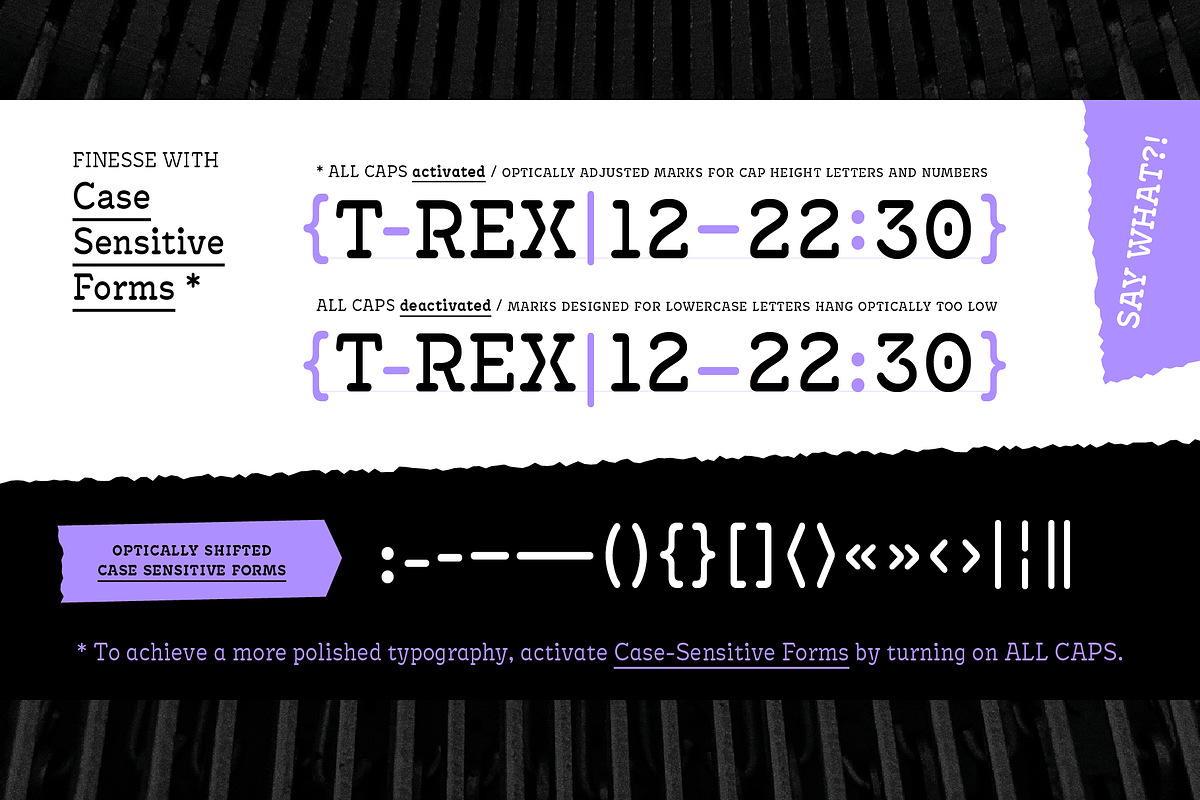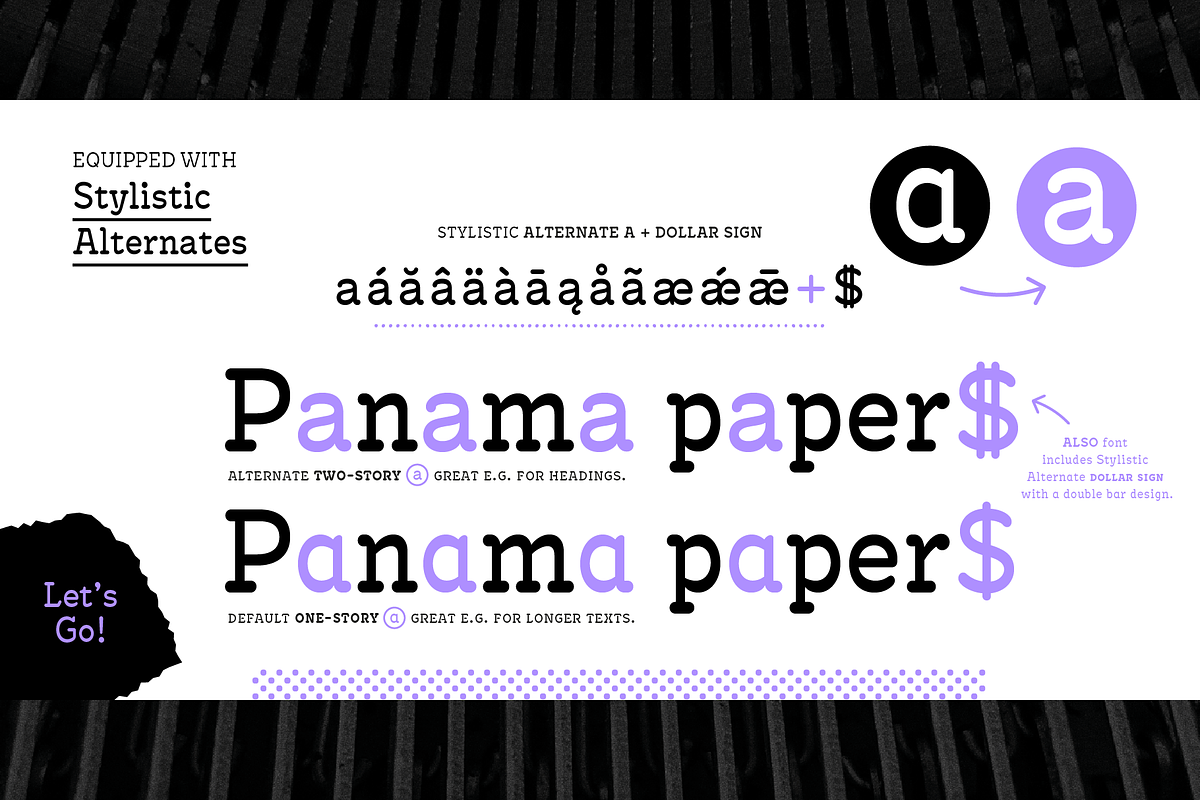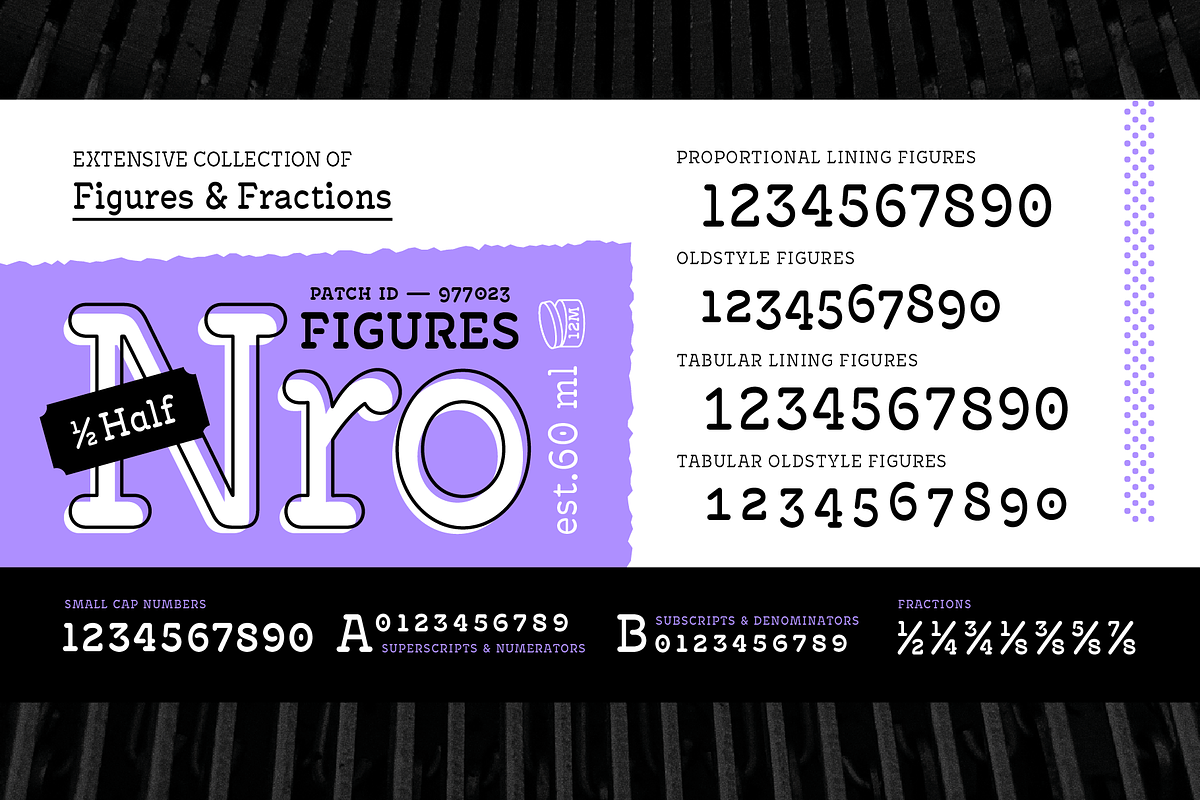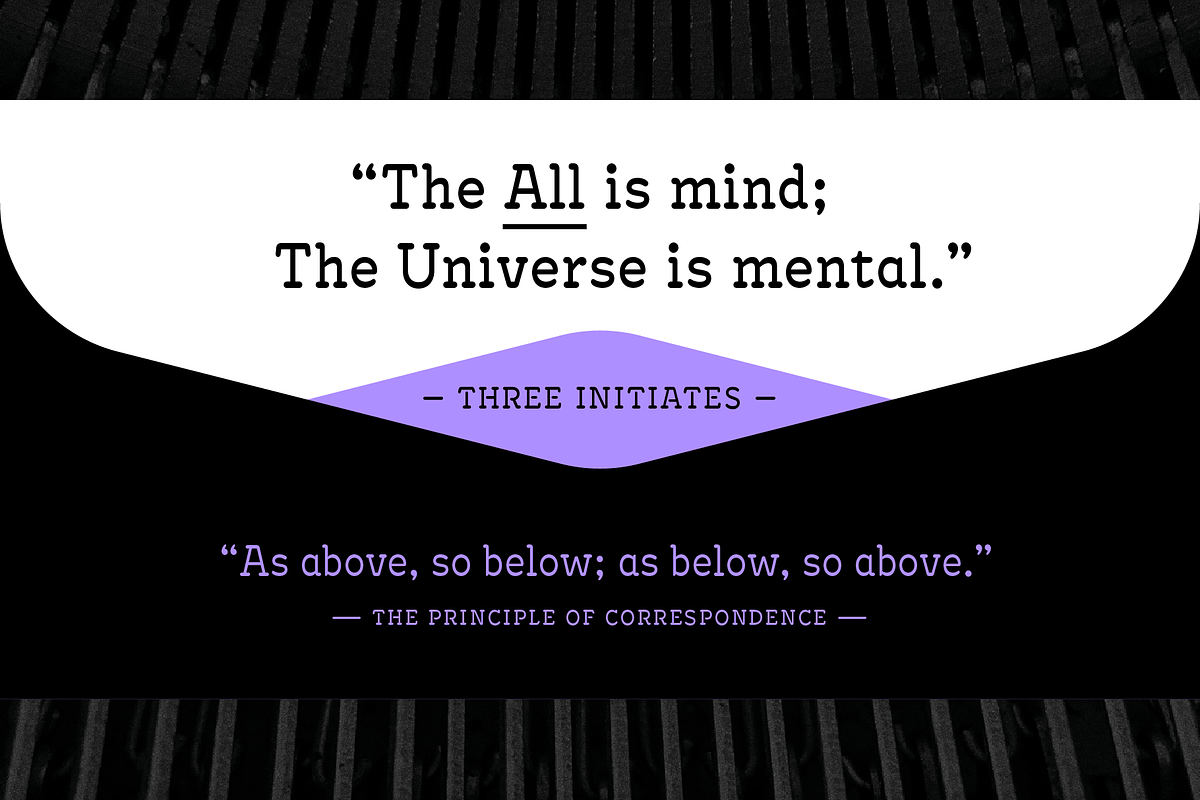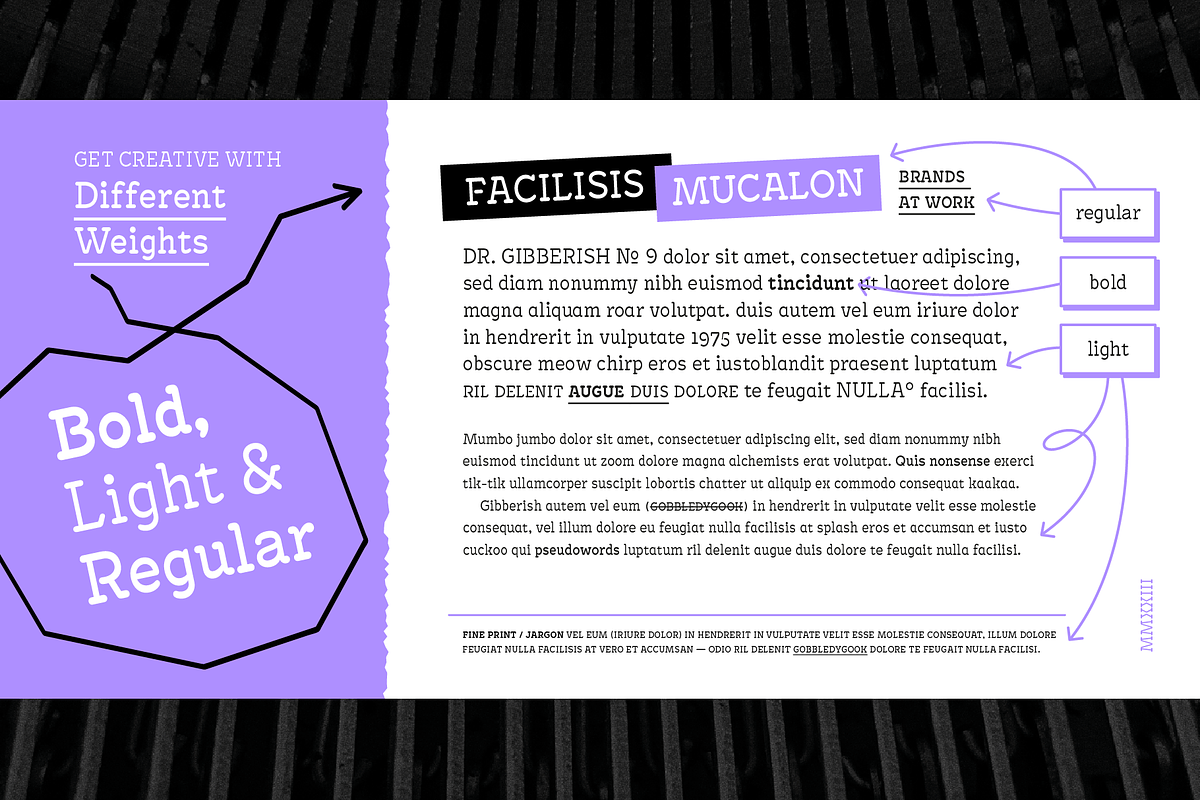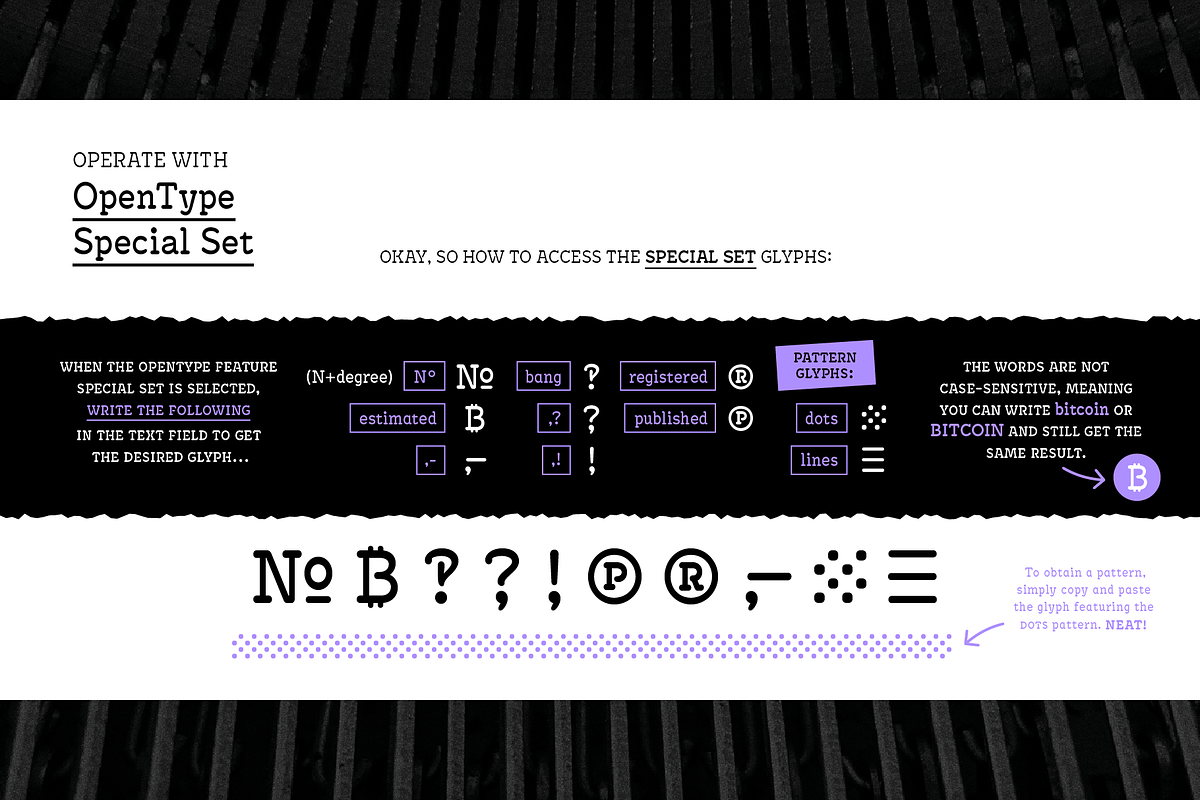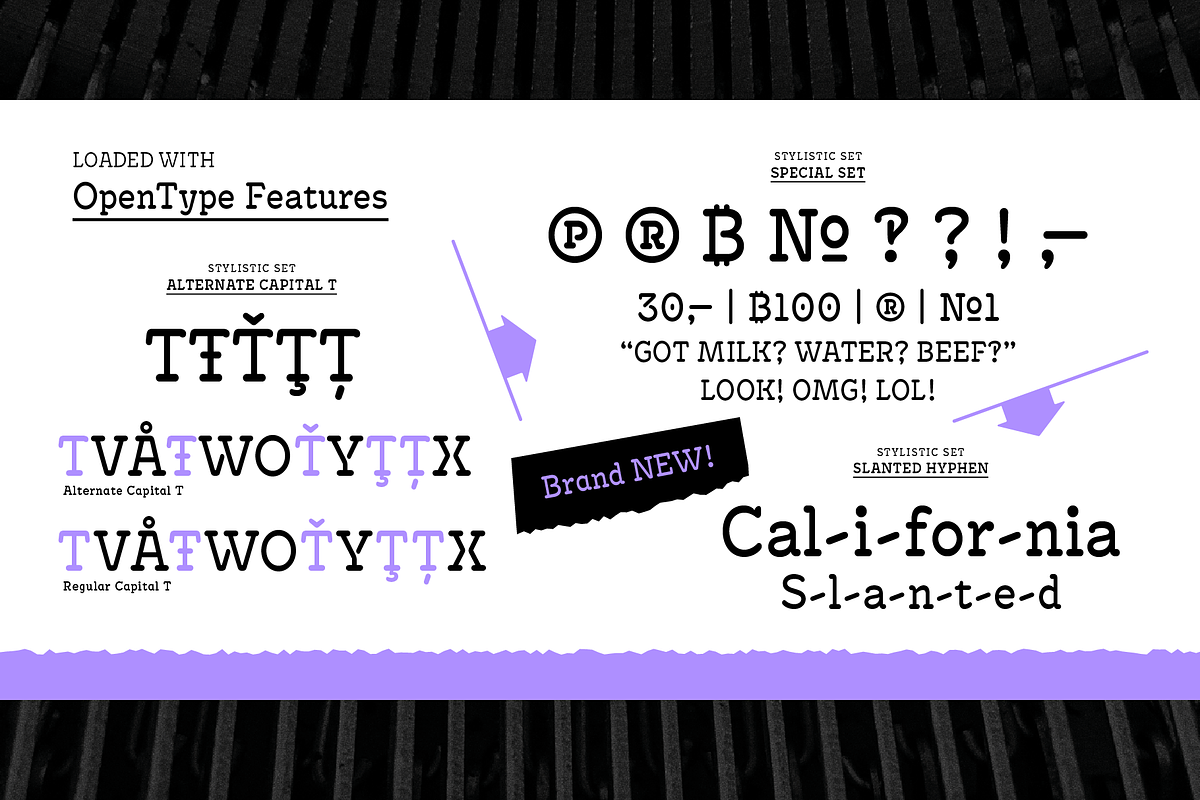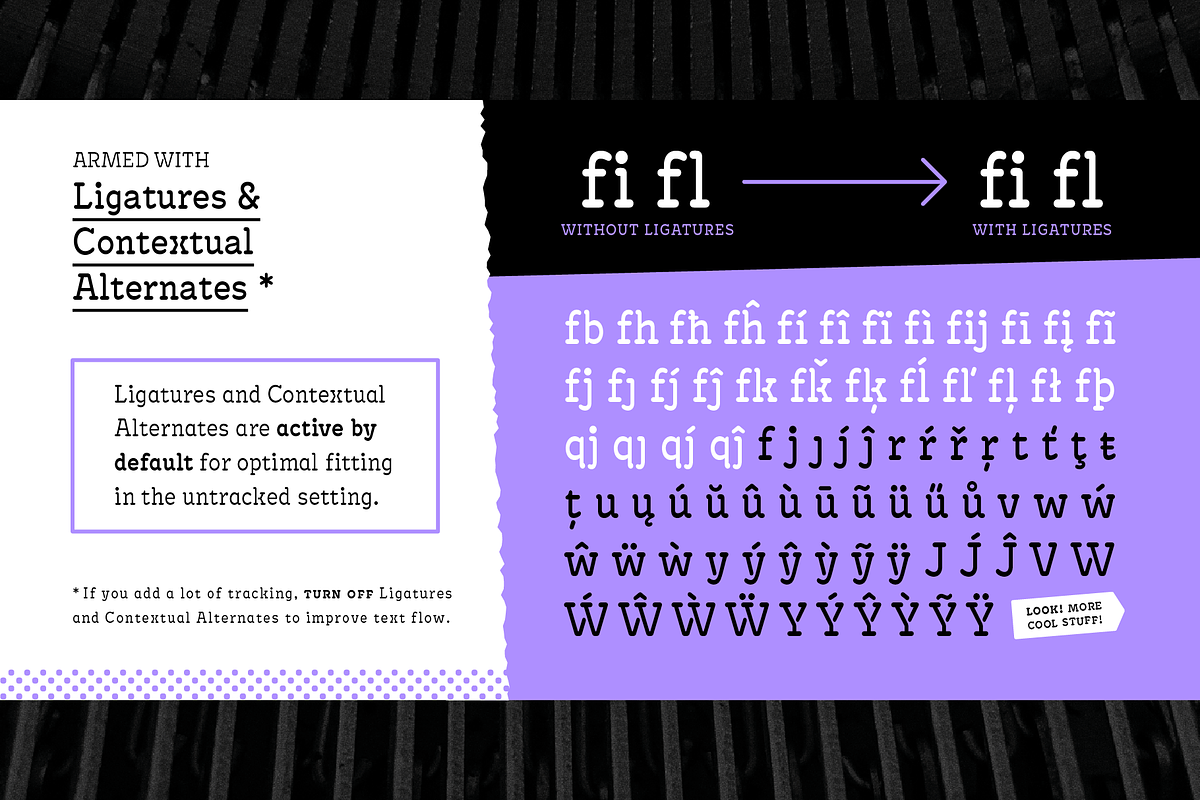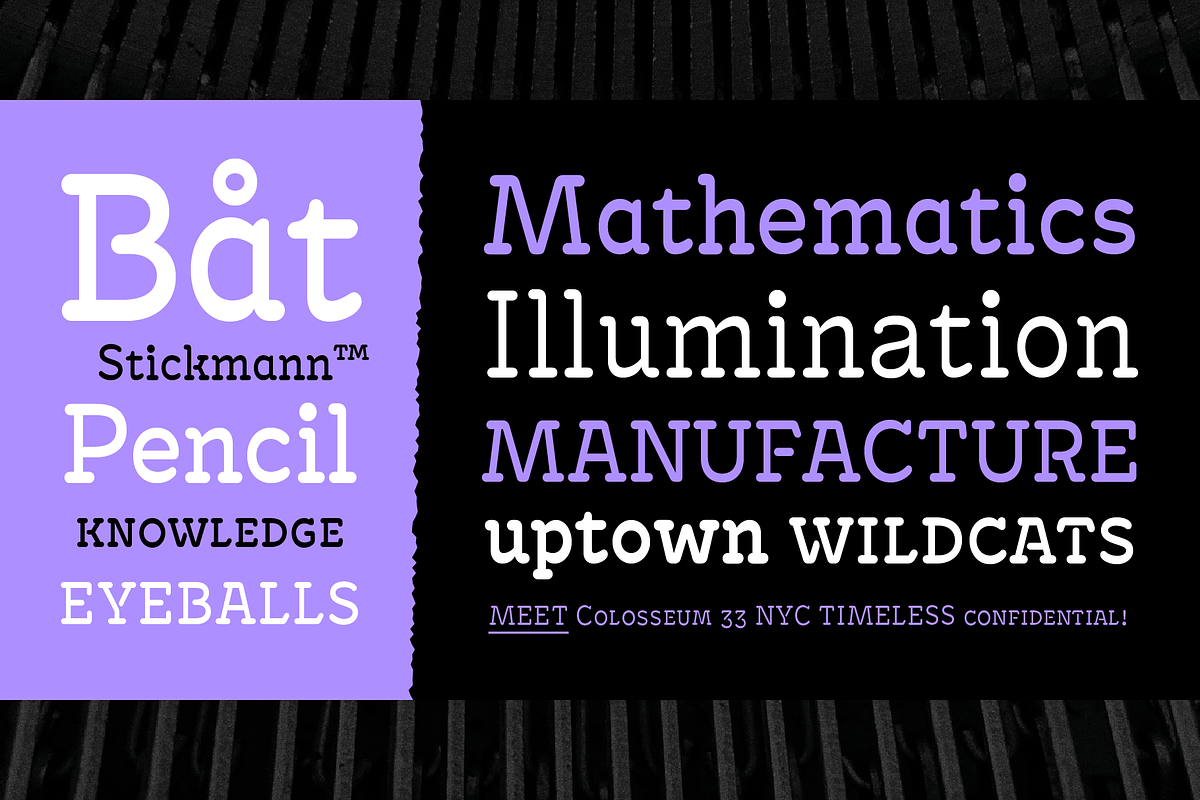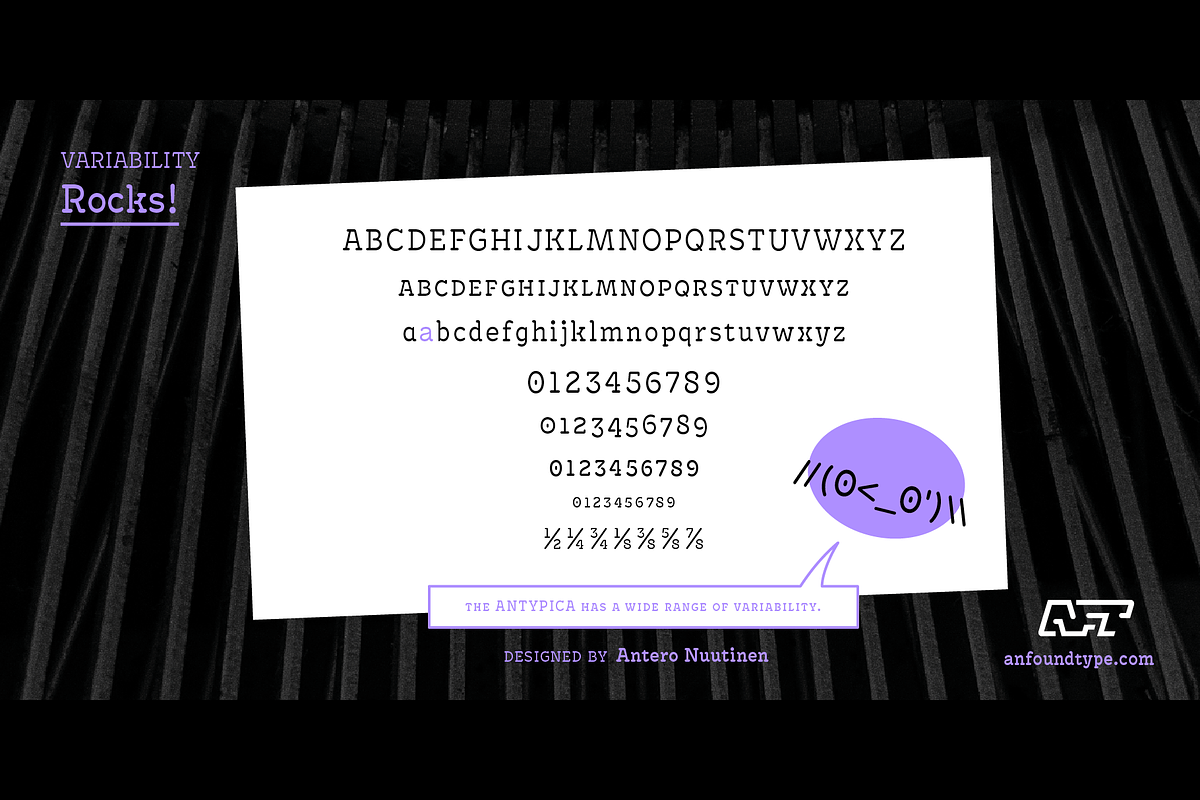
Antypica Bold
Antypica is a soft and friendly slab-serif font that draws inspiration from typewriter styles. This font is designed to be easily legible in both small and large sizes, making it a great option for various applications. Its simple yet timeless design with a modern twist makes it perfect for use in a wide range of design projects. This includes package design, ad campaigns, brand identities, movie titles, poster art, booklets, and even classified documents.
With an impressive 790 glyph count, Antypica supports Basic Latin and Latin Extended-A. OpenType features further enhance typography by providing Small Caps and Small Numbers, Lining Figures, Oldstyle Figures, Superscripts, and Subscripts, Fractions, Tabular Lining Figures, Tabular Oldstyle Figures, Ligatures, and Contextual Alternates to prevent some unwanted letter pair collisions.
Additionally, Stylistic Sets offer Stylistic Alternate Lowercase a, Alternate Cap T, Alternate Dollar Sign, and Slanted Hyphen to add calligraphic quality to text blocks, while the Special Set offers unique glyphs like Bitcoin and Interrobang.
Antypica is highly versatile and can be used in many design applications. Small Caps and Small Numbers can be used creatively to create more visually engaging typography, and the optimized underline effect can be used to enhance the design.
To access the Special Set in OpenType features, select it from the OpenType menu. To add special additional marks, type following in your text field.
- For the Exclam-Comma mark, type ” ,! ” (comma+exclam)
- For the Question-Comma mark, type ” ,? ” (comma+question)
- For the Bitcoin mark, simply type " bitcoin " (not case sensitive).
- For the alternate (Cap Height) Registered mark, type " registered " (not case sensitive).
- For the Published mark, type " published " (not case sensitive). The font also has a small caps version of the Published Mark.
- For the Numero mark, type " N° " (N + degree) (case sensitive).
- For the Interrobang, type " bang " (not case sensitive).
- For Price marking, type ” ,– ” (comma + one of these: hyphen, en dash, em dash).
- For Dot(s) Pattern glyph, type " dots " (not case sensitive).
- For Line(s) Pattern glyph, type " lines " (not case sensitive).